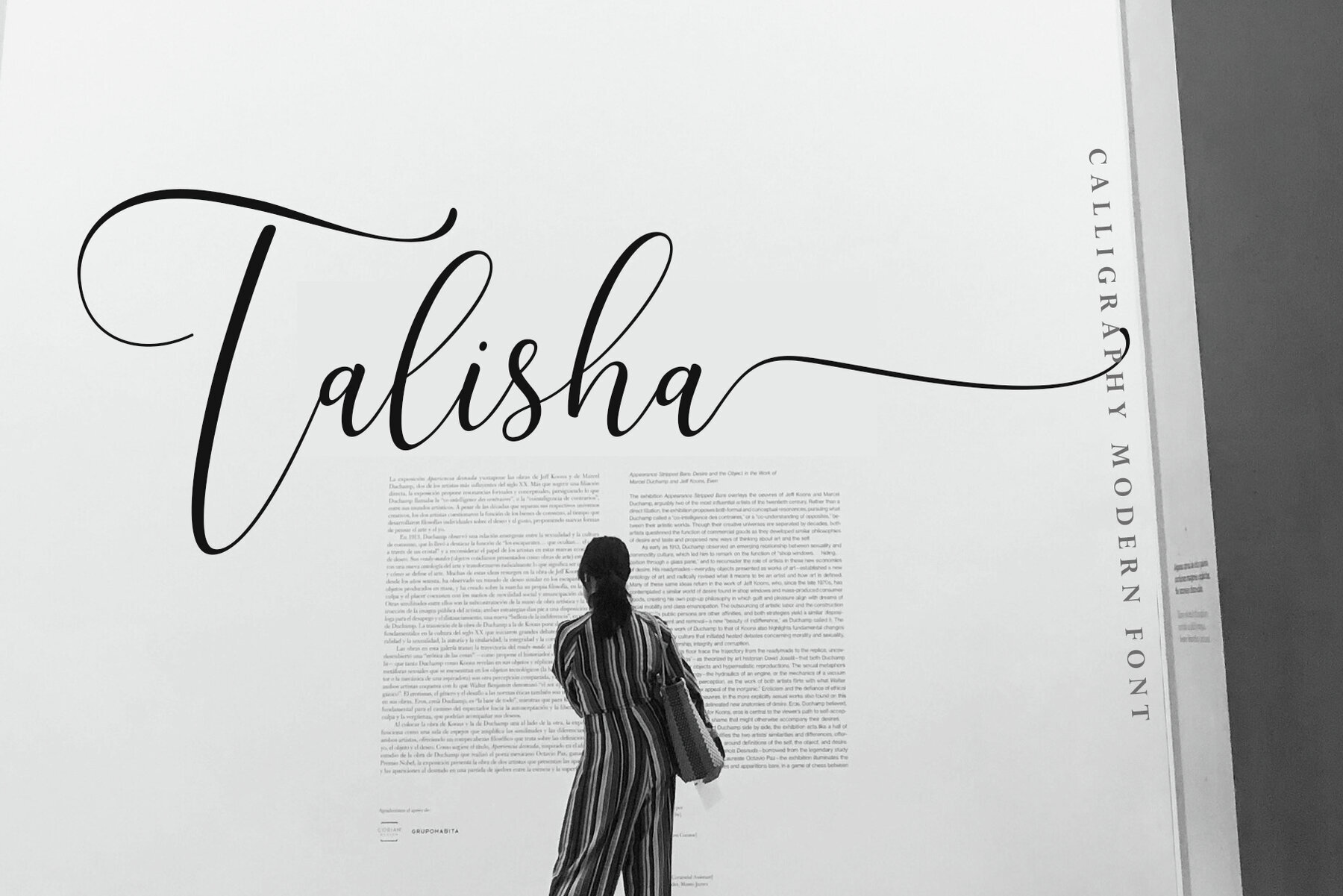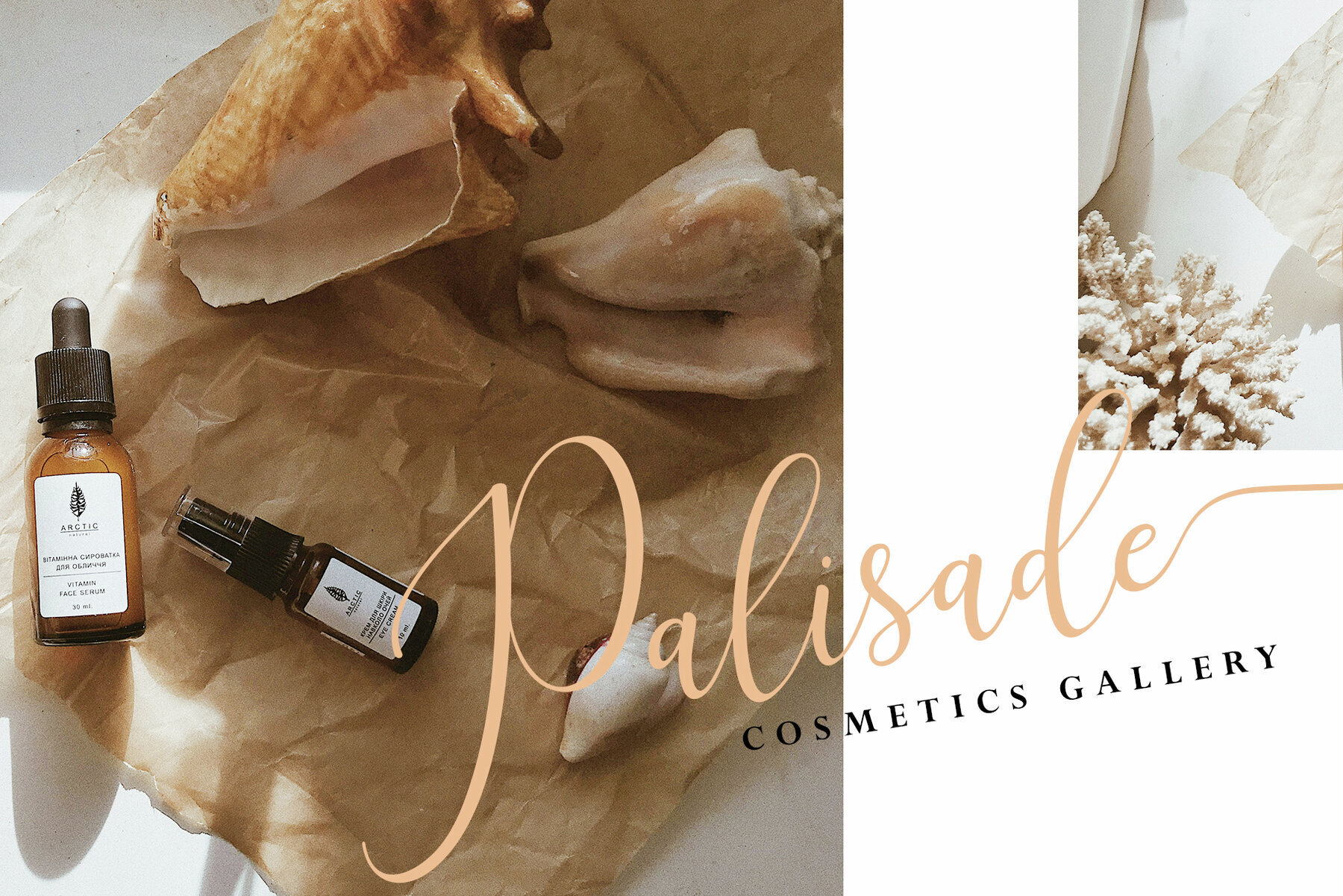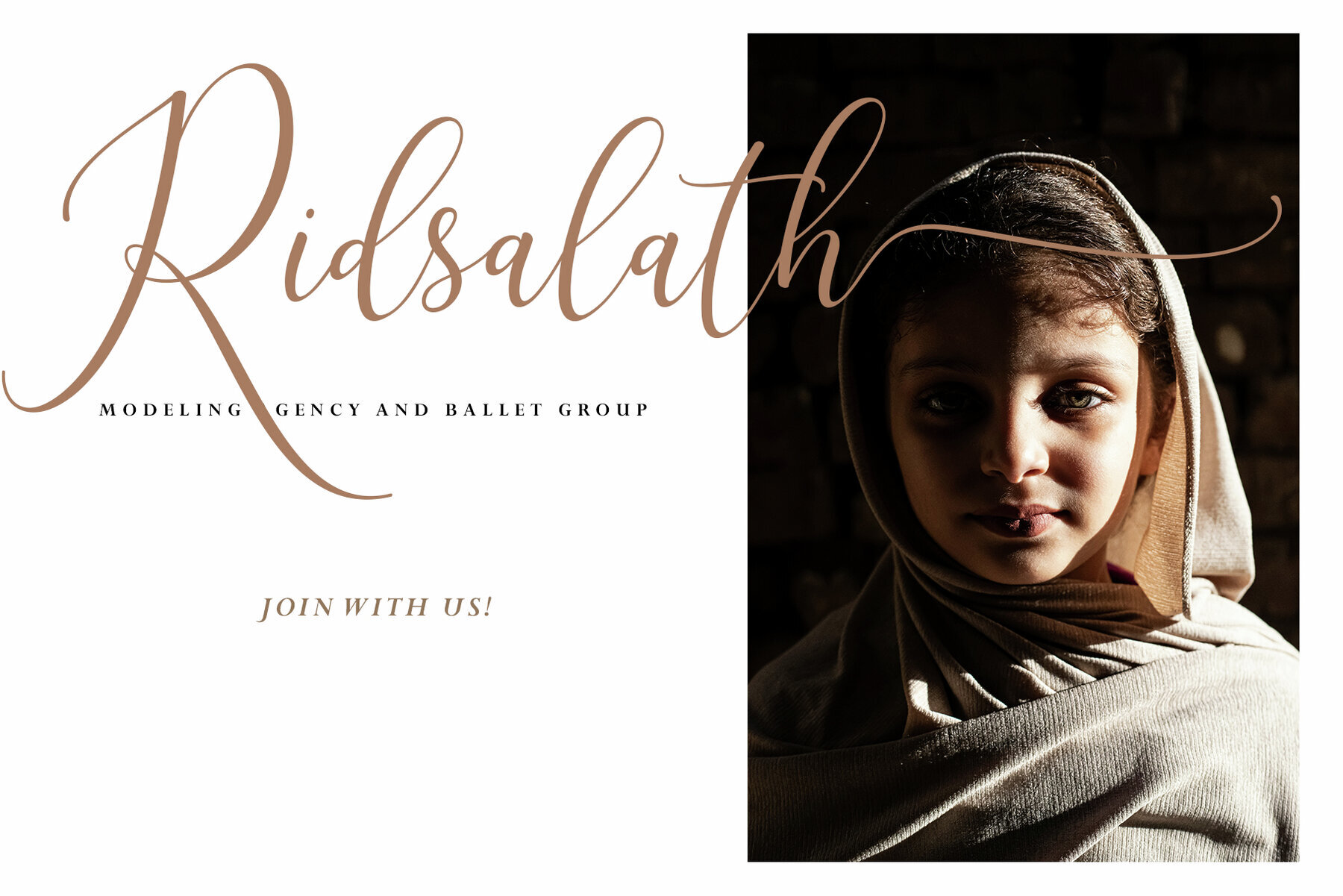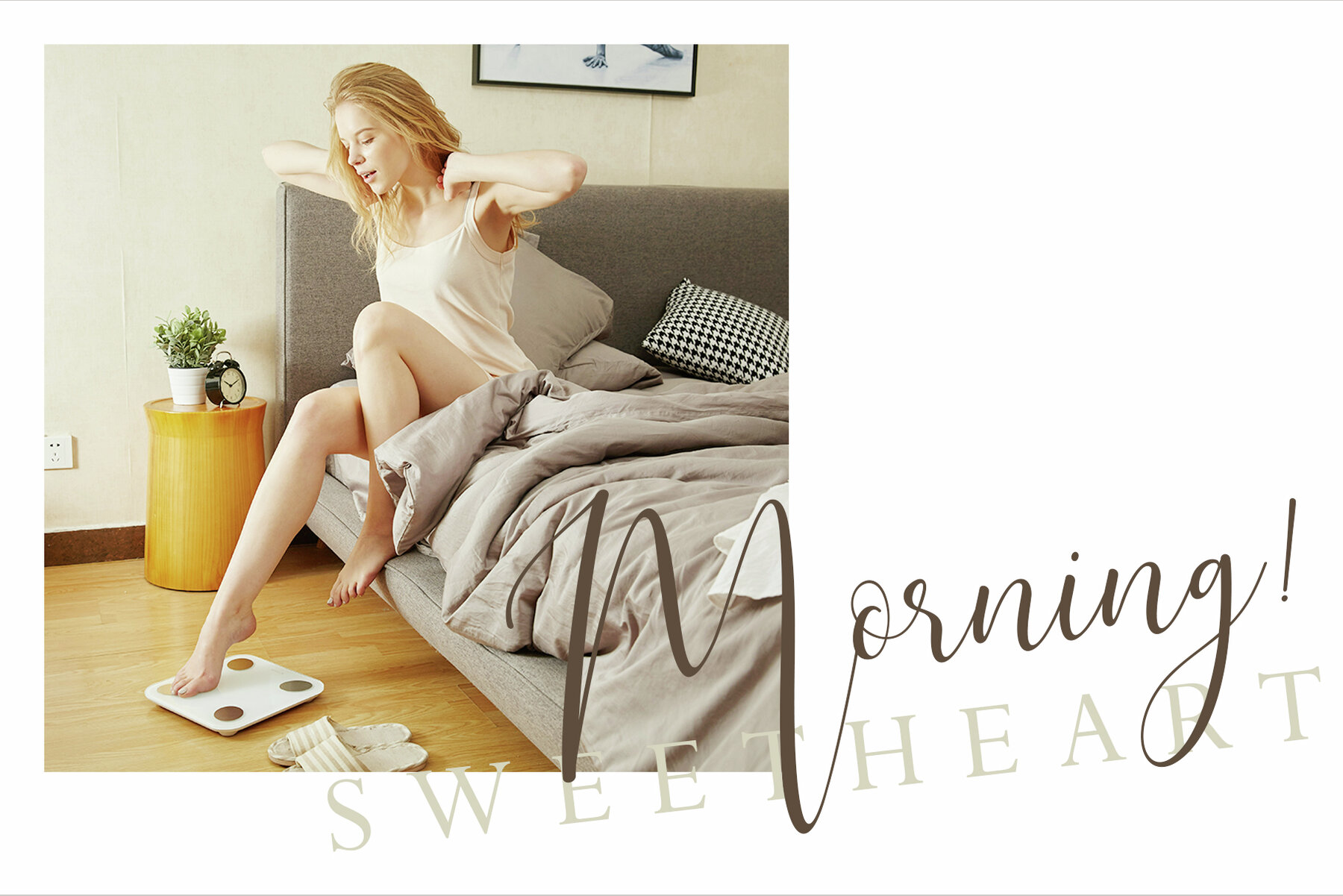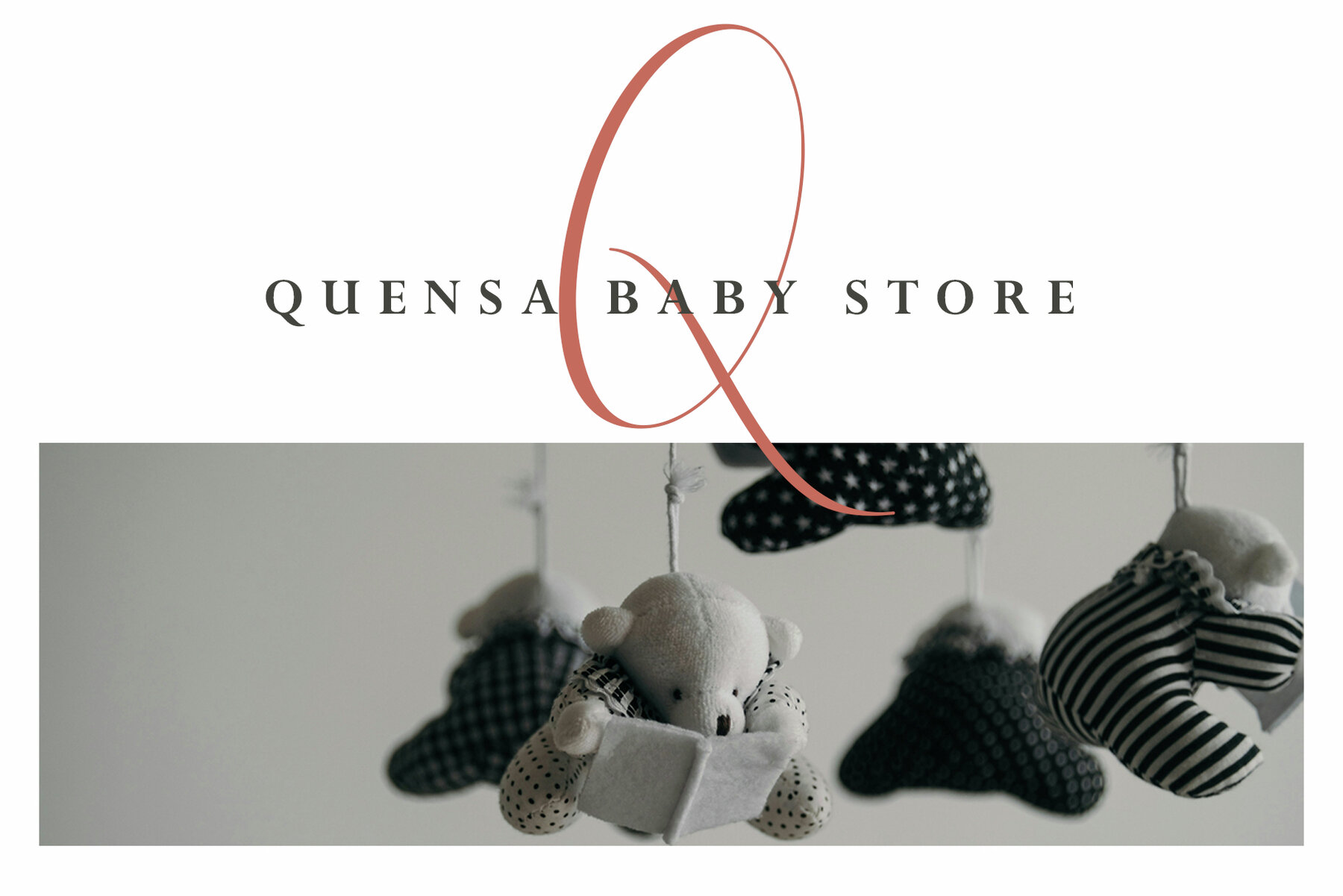
Talisha Script Font
Talisha Script
Talisha Script captures elegance and style with its soft and neat italic flow. Perfectly designed for a range of creative projects, this modern calligraphy font adds a touch of sophistication wherever it’s applied. Enhance your logo designs, branding projects, homeware, product packaging, and more with this versatile typeface.Introducing Talisha Script: A Modern Calligraphy Font
Perfect for Your Creative Endeavors